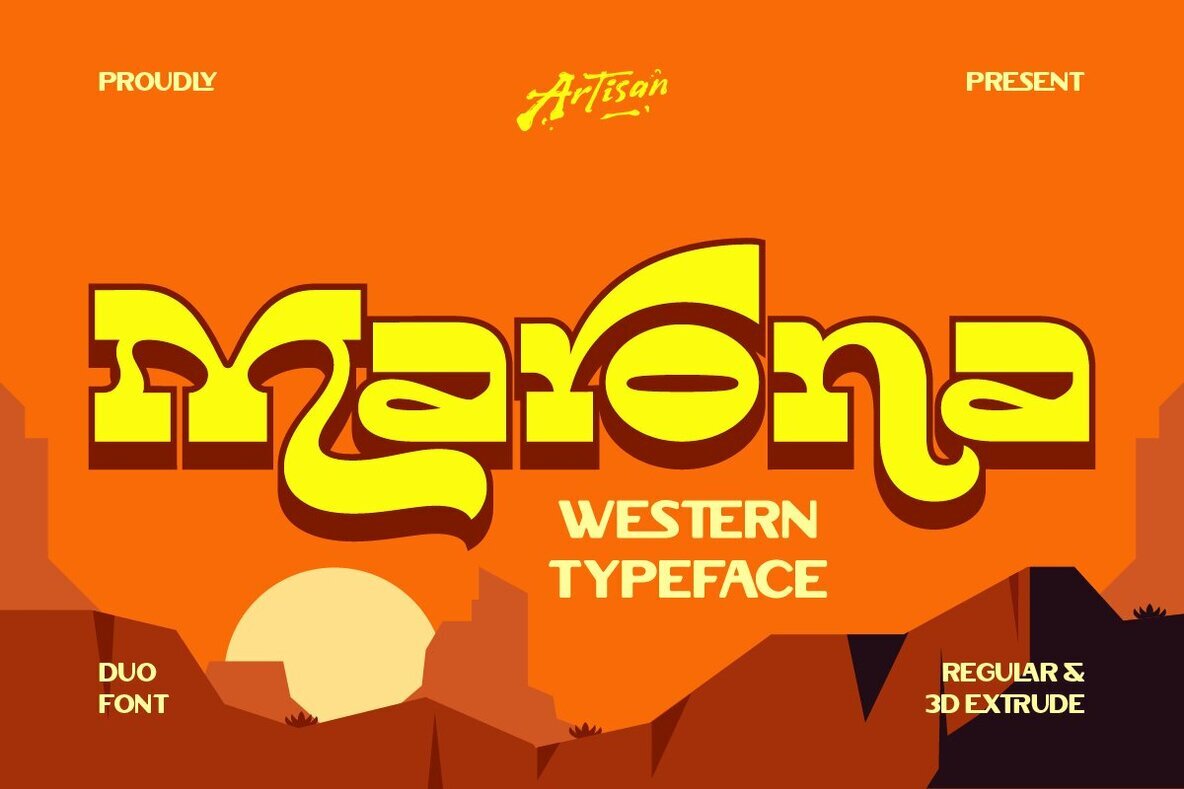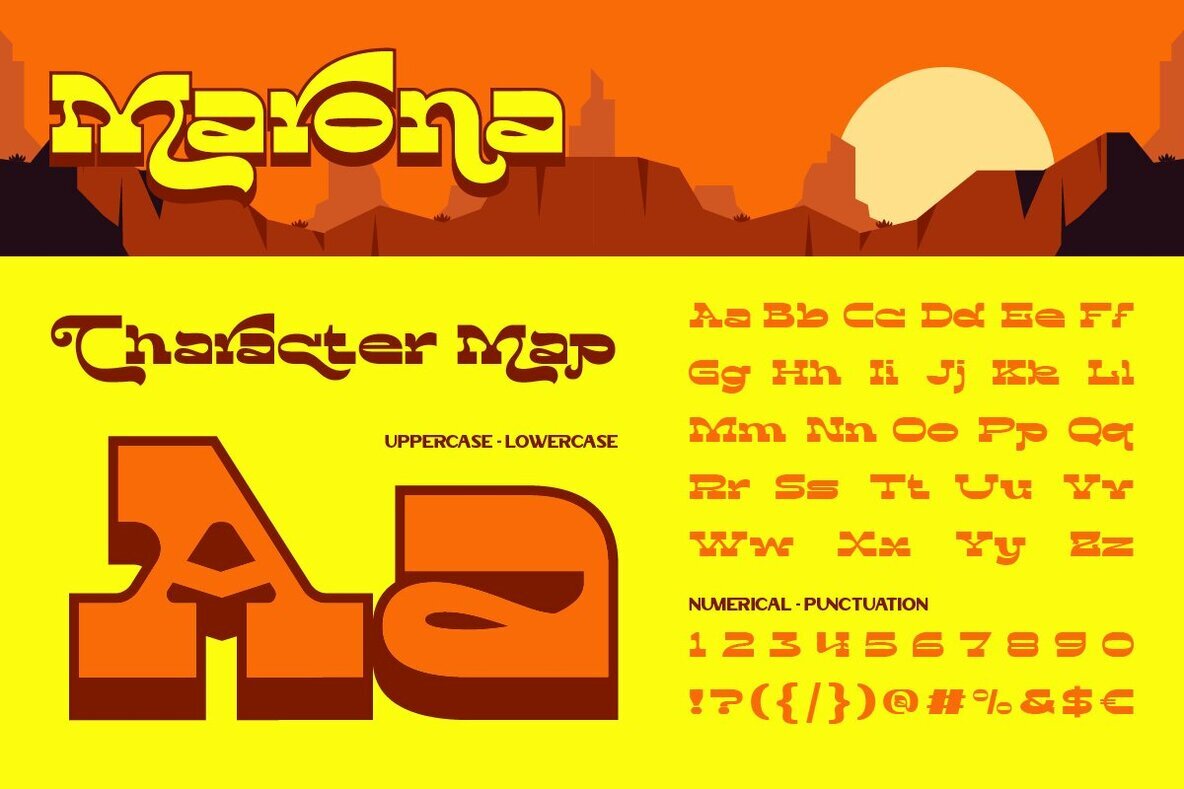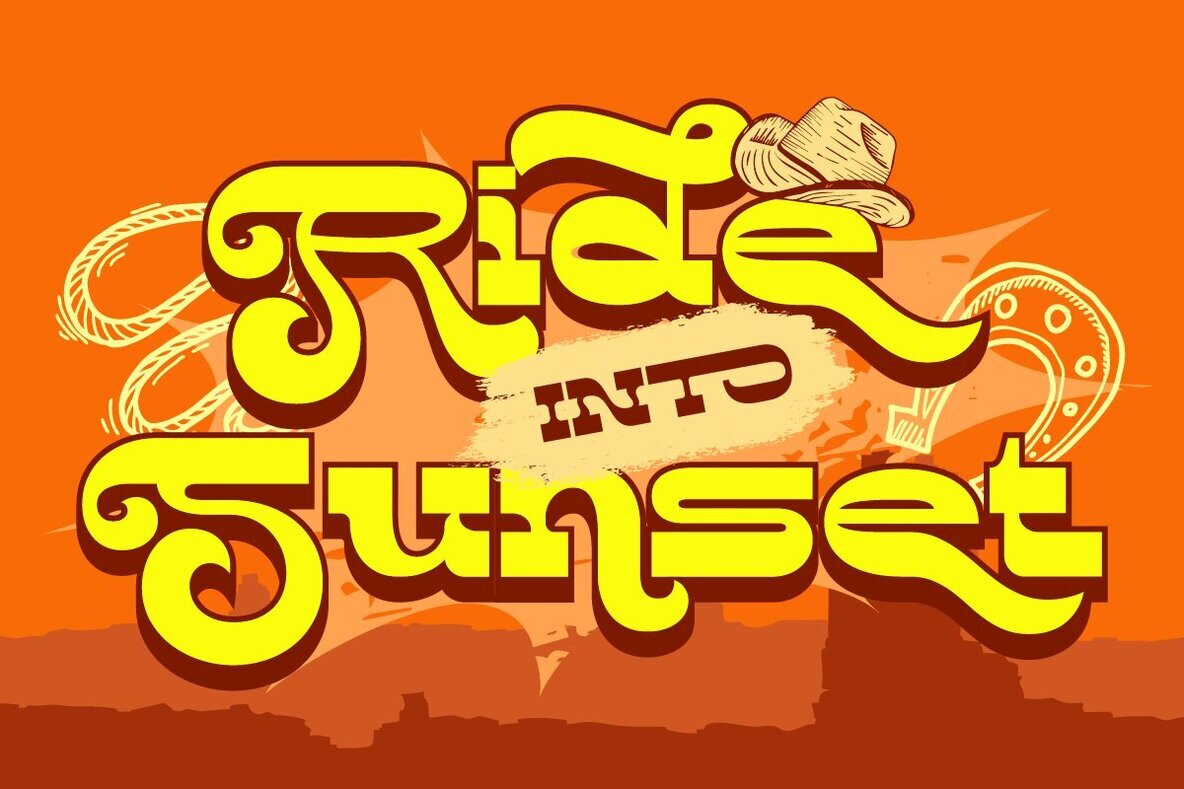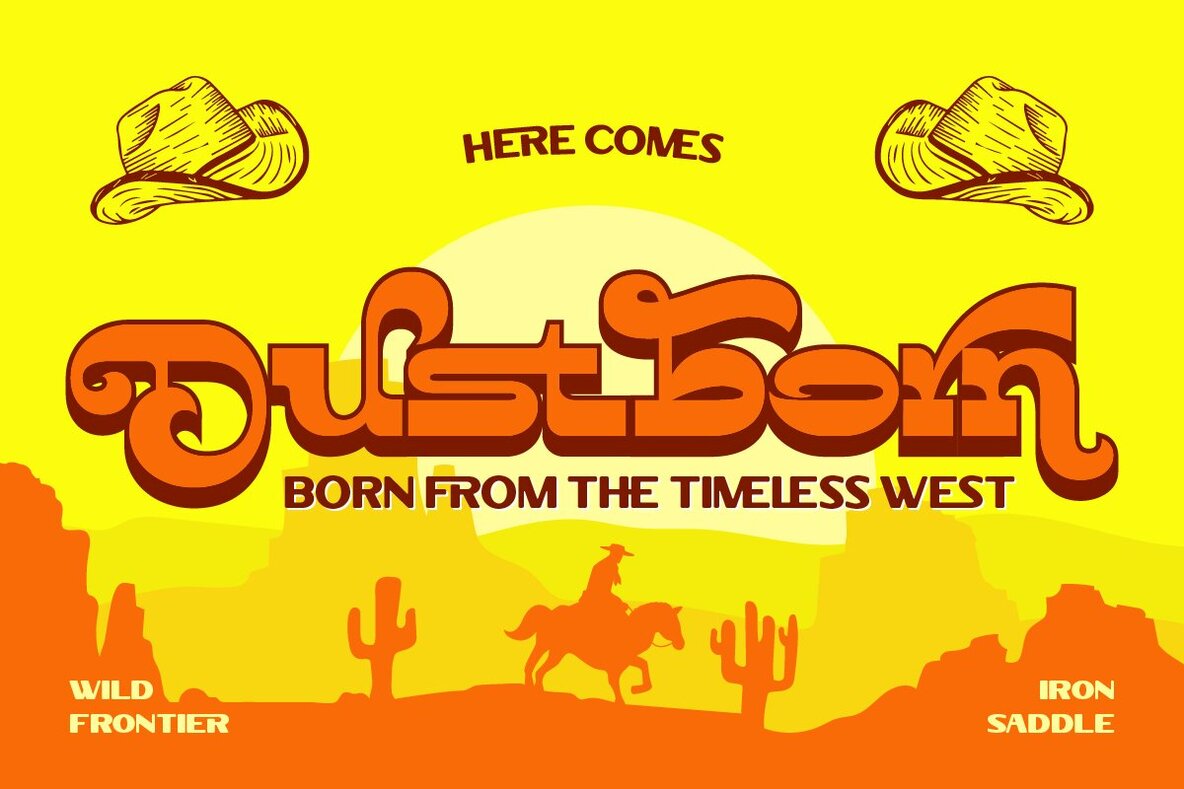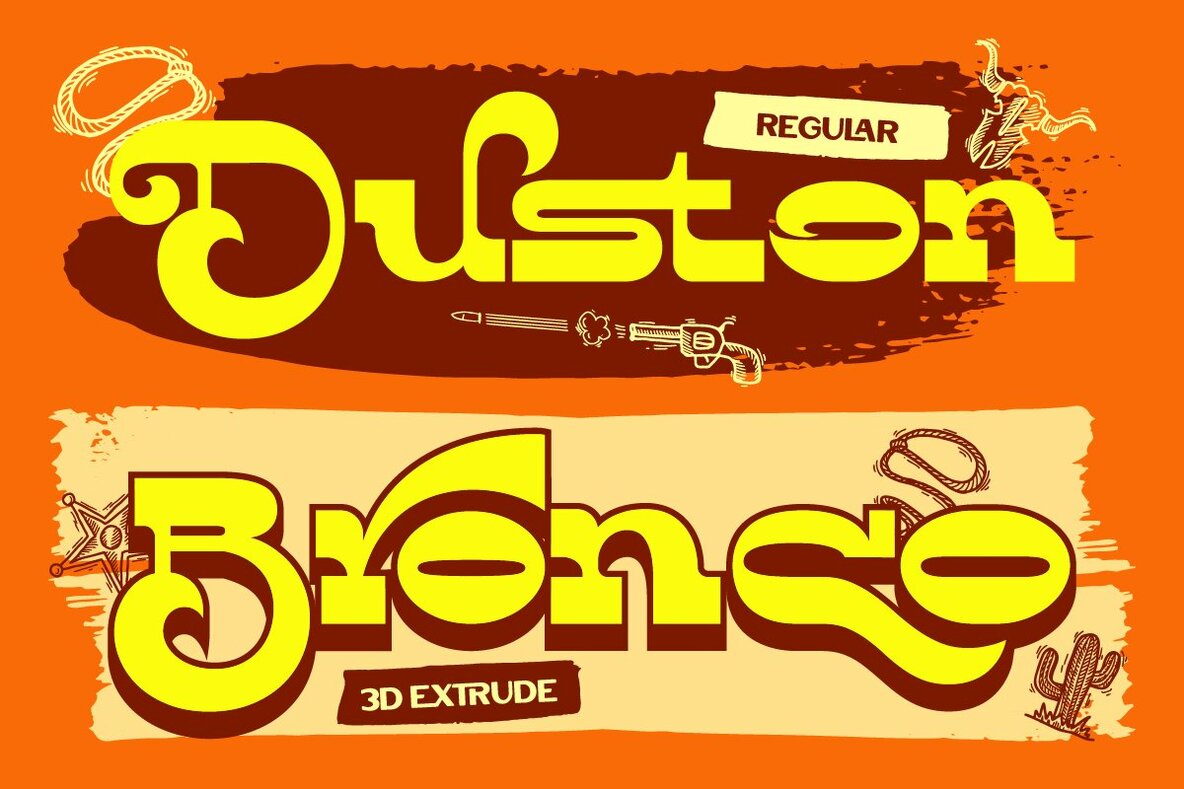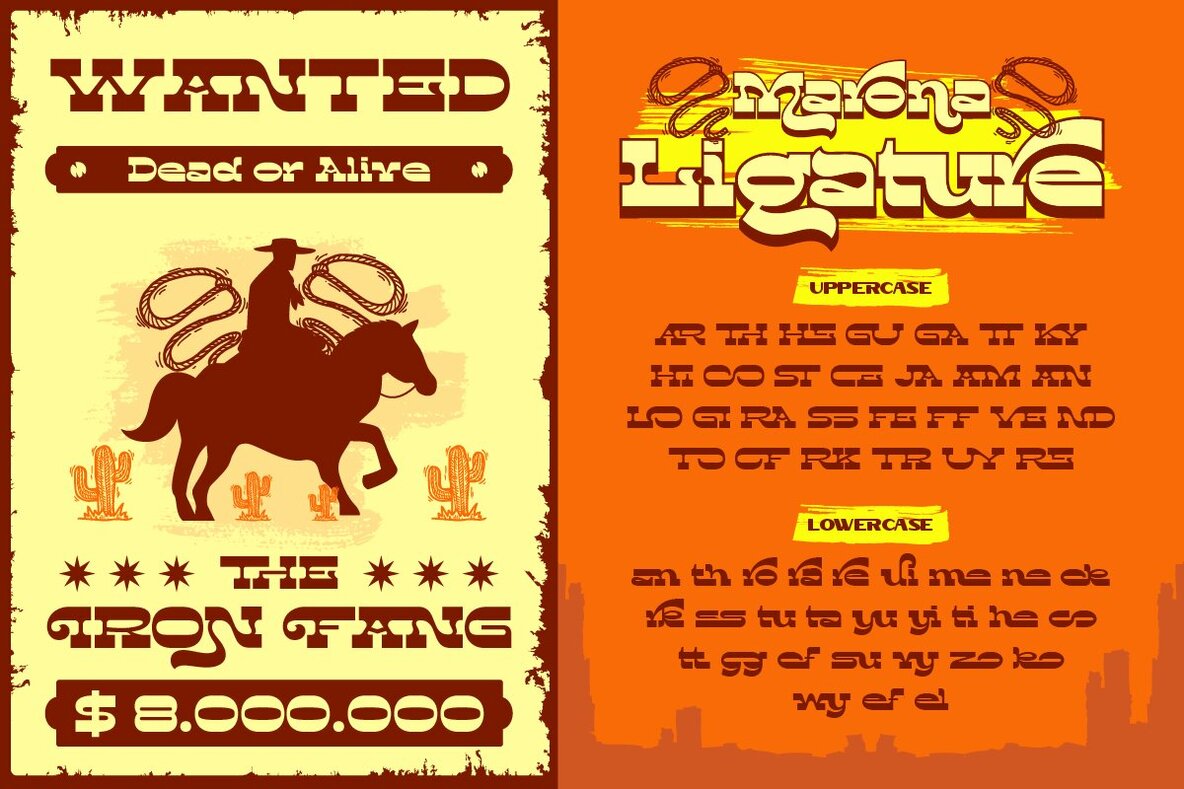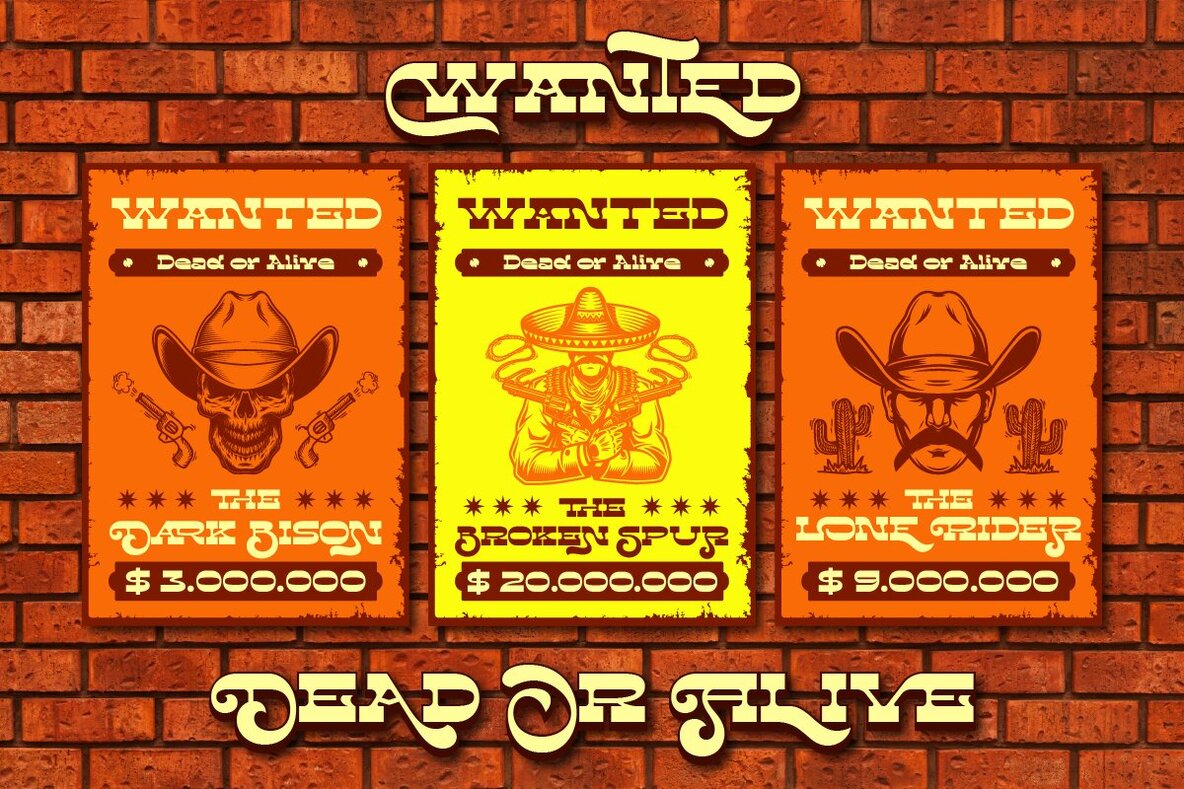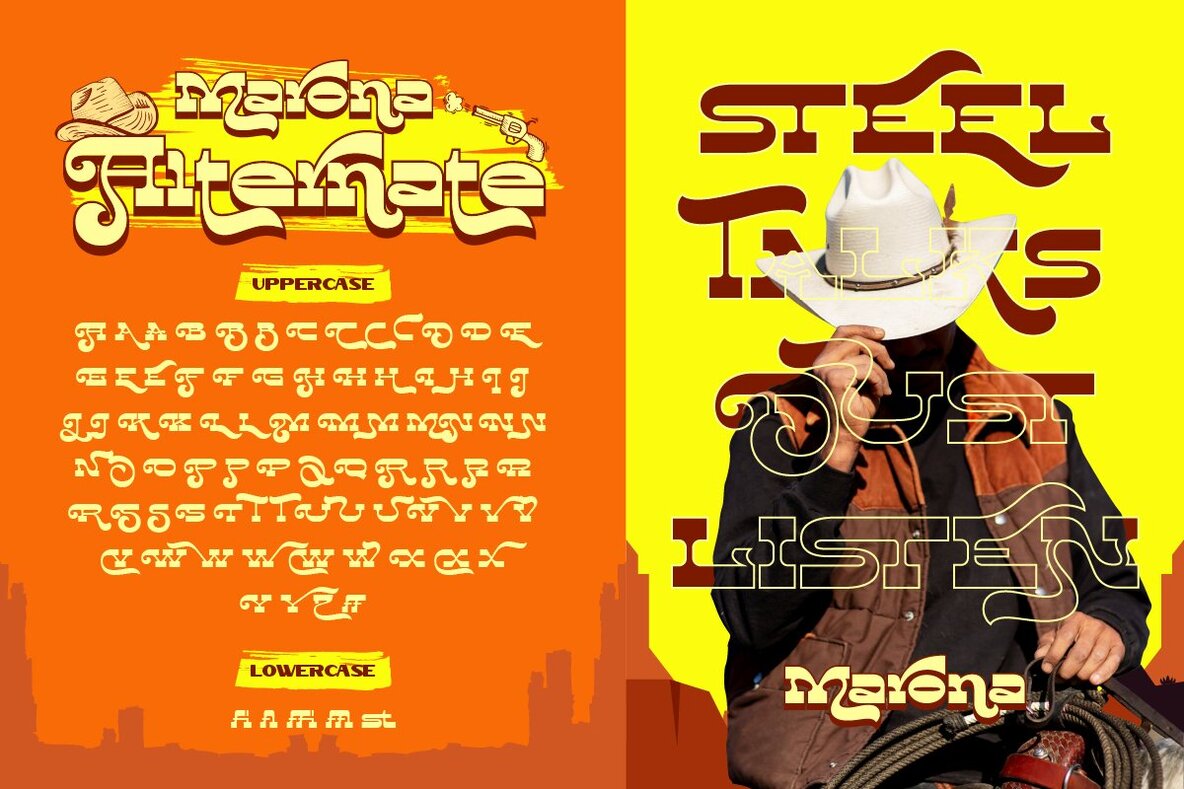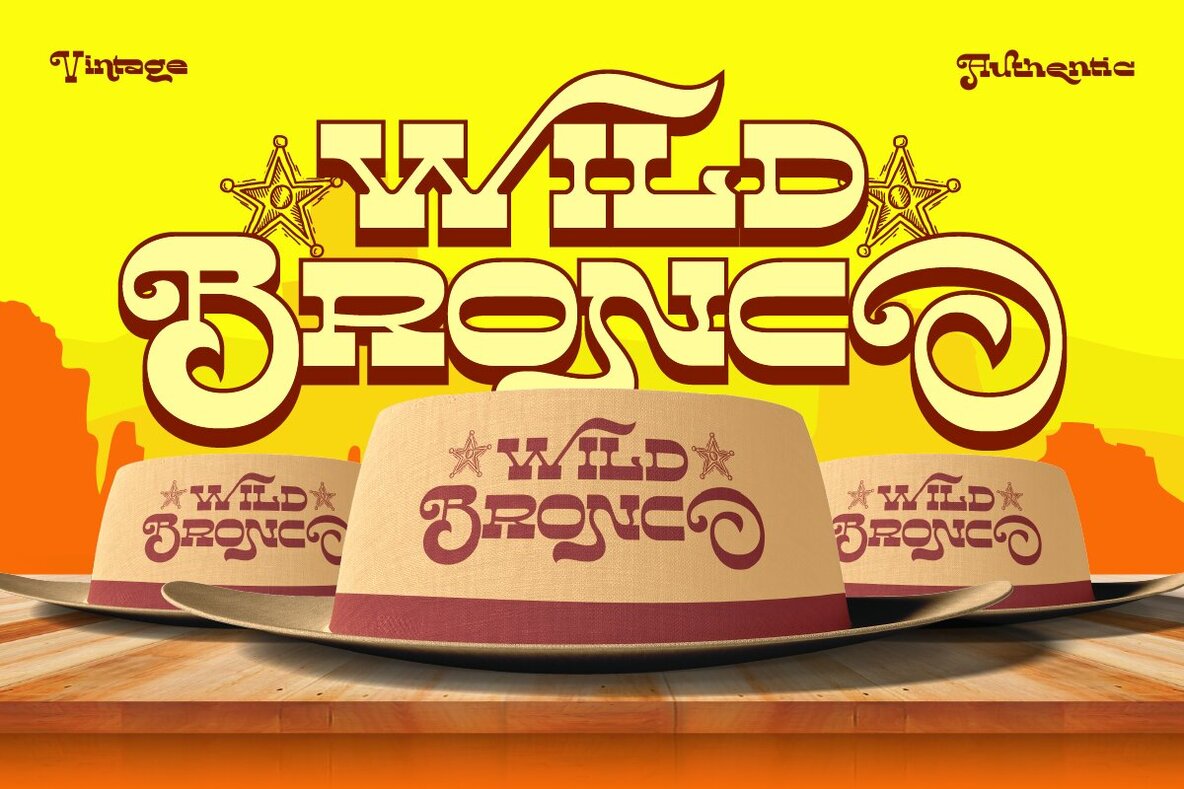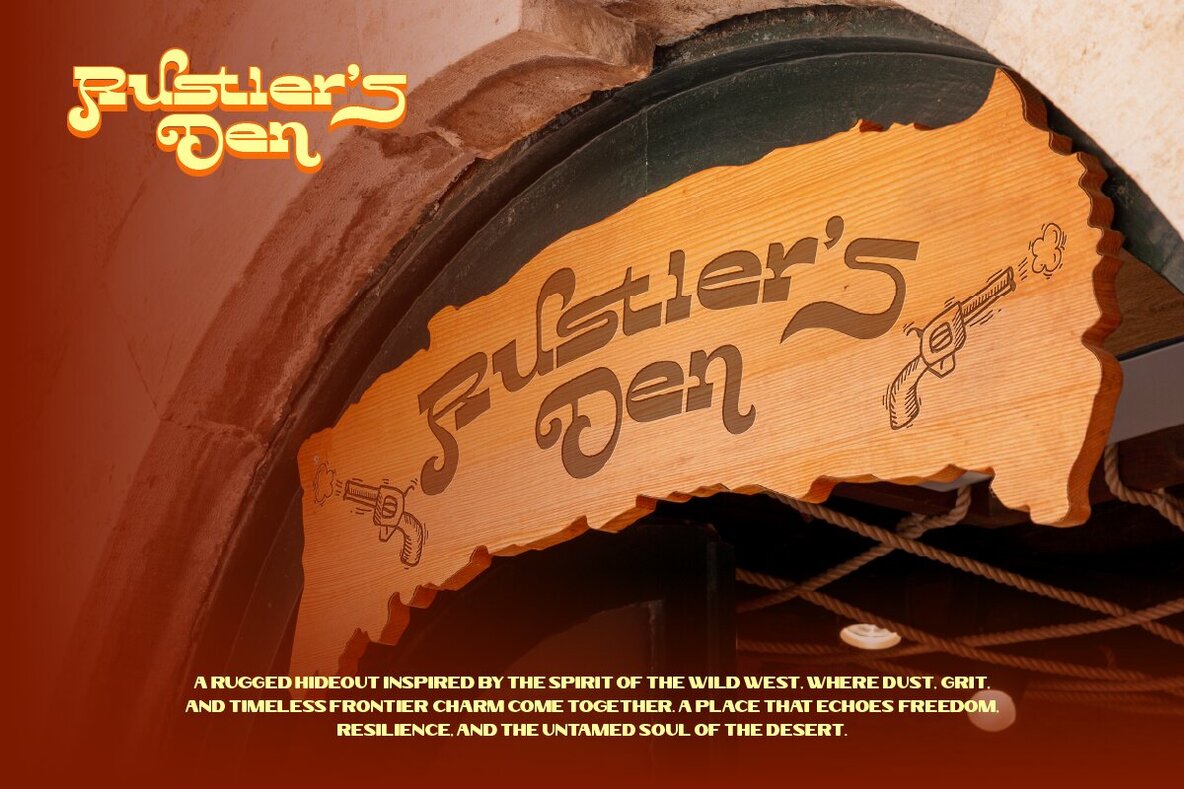
Marona Font
Steeped in Western charm, Marona is a bold, playful typeface that effortlessly fuses tradition with modernity. Its chunky curves and distinctive letterforms convey both a fun and robust vibe, tailored for those who need their designs to truly stand out. Whether you're channeling the adventurous spirit of the Wild West or simply infusing your project with a dose of boldness, Marona is the way forward. Available in Regular and Extrude styles, it commands attention with unwavering style and ease.Marona: A Distinctive Typeface With Western Allure